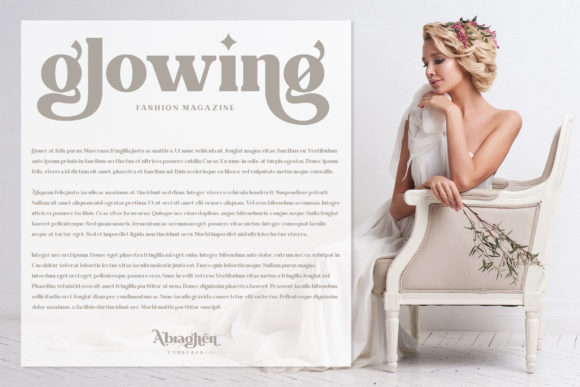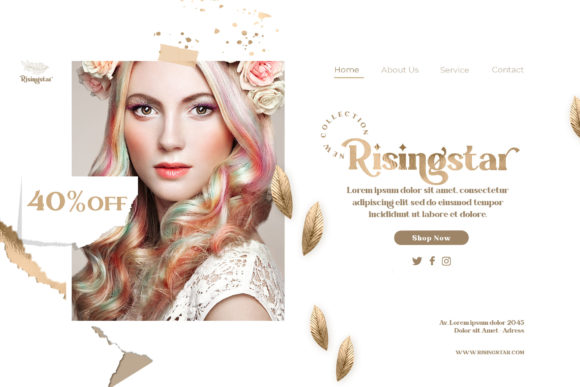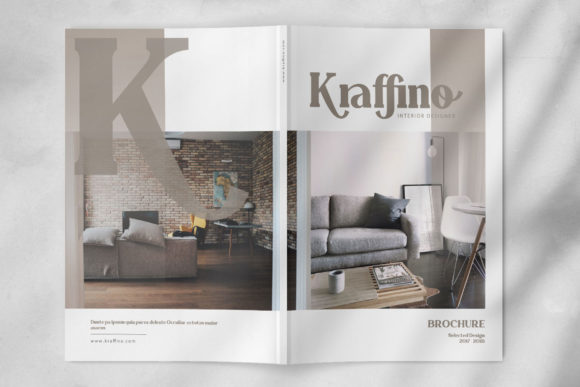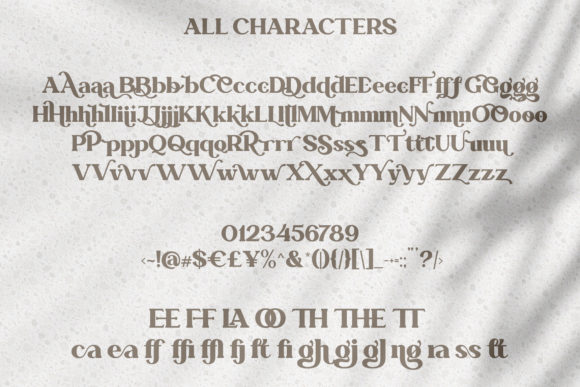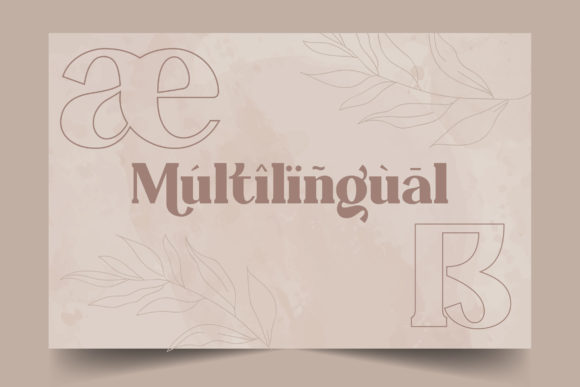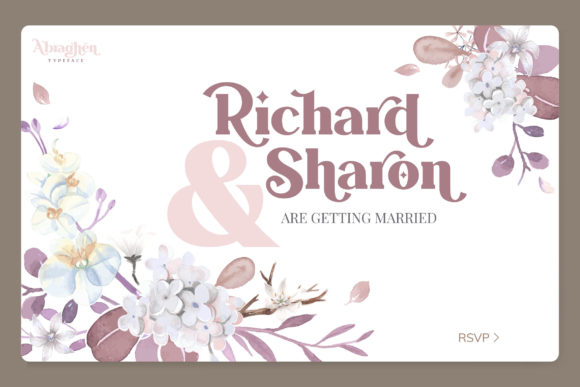
Introducing Abraghen Font: The Perfect Blend of Assertiveness and Elegance
In the world of typography, finding the right font for your design project can be a daunting task. You’re likely searching for a font that not only captures the essence of your brand or message but also stands out from the crowd. Look no further than Abraghen Font, an assertive and elegant serif font designed to elevate your designs to new heights.
What is Abraghen Font?
Abraghen Font is a meticulously crafted serif font that strikes the perfect balance between assertiveness and elegance. Its unique design makes it an excellent choice for a wide range of applications, from luxurious logos and wedding invitations to eye-catching headings, t-shirts, letterhead, signage, labels, news, posters, badges, and more.
Key Features of Abraghen Font
- Assertive yet Elegant: Abraghen Font boasts a confident and sophisticated presence, making it perfect for designs that require a touch of luxury and refinement.
- Versatile: Whether you’re working on a logo, invitation, or signage, Abraghen Font adapts seamlessly to various design needs, ensuring consistency and professionalism across all your projects.
- Serif Excellence: The serif details in Abraghen Font add a classic touch, enhancing readability and giving your text a polished look.
- Wide Range of Applications: From traditional uses like wedding invitations and letterheads to modern applications such as t-shirts and posters, Abraghen Font is incredibly versatile.
Why Choose Abraghen Font?
Choosing Abraghen Font for your design project comes with numerous benefits. Its assertive nature ensures your message is delivered with confidence, while its elegant features add a touch of sophistication. This combination is rare and highly sought after in the design world, making Abraghen Font a valuable asset for designers and crafters.
Applications of Abraghen Font
The versatility of Abraghen Font means it can be used in an array of design projects. Here are some ideal applications:
- Logos: Create a lasting impression with a logo that exudes confidence and elegance.
- Wedding Invitations: Add a touch of luxury and romance to your wedding invitations.
- Headings and Posters: Grab attention with bold and elegant headings.
- T-Shirts and Merchandise: Elevate your brand or message on t-shirts and other merchandise.
- Signage and Labels: Make your signage and labels stand out with a font that commands attention.
Tips for Using Abraghen Font Effectively
To get the most out of Abraghen Font, consider the following tips:
- Pair with Complementary Fonts: For body text, pair Abraghen Font with a simpler, sans-serif font to create visual contrast.
- Adjust Size and Weight: Experiment with different sizes and weights of Abraghen Font to create hierarchy and emphasis in your design.
- Consider Color: Choose colors that complement the assertive and elegant feel of Abraghen Font, such as deep blues, rich blacks, or luxurious golds.
Abraghen Font is a powerful tool in the world of design, offering a unique blend of assertiveness and elegance. Its versatility and range of applications make it an ideal choice for designers and crafters looking to elevate their projects. Whether you’re creating a logo, wedding invitation, or signage, Abraghen Font is sure to make a lasting impression.